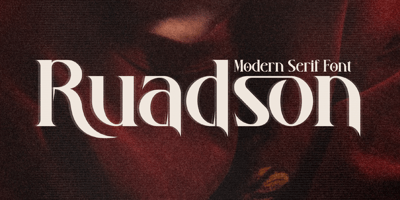
Ruadson
Ruadson font
Ruadson Font Family was designed by Heru Utama Putra and published by Letterena Studios. Ruadson contains 2 styles and family package options. Ruadson is bold and stylish serif font.This typeface is perfect for an elegant & luxury logo, book or movie title design, fashion brand, magazine, clothes, lettering, quotes, and so much more. This font is PUA encoded which means you can access all of the glyphs and swashes with ease.